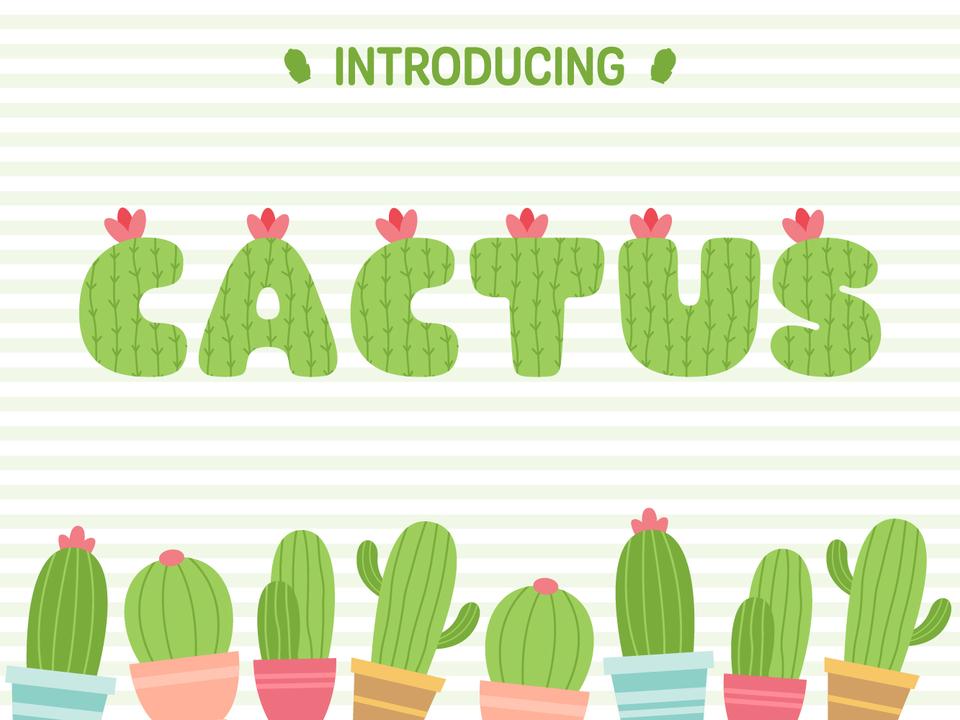
Introducing Cactus Font
Cactus is a cute and colorful display font. Color fonts are a type of digital font that includes multiple colors within each character, rather than just one color for the entire font. This can be used to add visual interest and creative flair to text in digital designs.